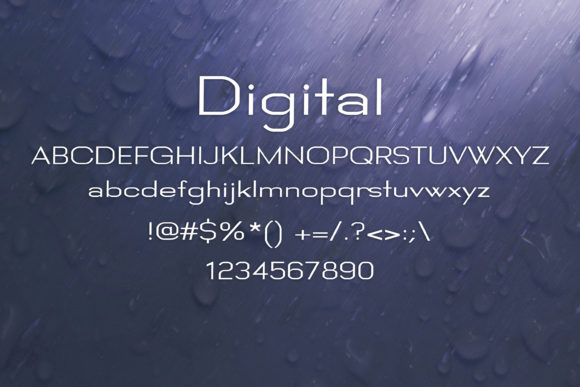
Introducing Digital Font: Elevate Your Designs with a Futuristic Twist
In the realm of digital design, typography plays a pivotal role in conveying the essence of a brand or project. The right font can instantly elevate your work, adding a touch of sophistication and luxury. This is where the Digital Font comes into play – a futuristic, yet simplistic display font designed to seamlessly blend with contemporary design styles and applications.
The Essence of Digital Font
Digital Font is crafted to make a statement. Its clean lines and minimalist aesthetic give it a sleek, modern look that’s perfect for designers and crafters aiming to infuse their projects with a futuristic vibe. Whether you’re working on a cutting-edge tech startup’s branding, a forward-thinking fashion label, or any project that demands a modern edge, Digital Font is your go-to choice.
Key Features of Digital Font
- Contemporary Aesthetic: Digital Font boasts a design that is quintessentially modern. Its characters are carefully crafted to provide a clean and uncluttered look, making it perfect for headlines, titles, and any prominent text in your designs.
- Versatility: One of the standout features of Digital Font is its versatility. It can be used across various mediums, from digital platforms like websites and mobile apps to print materials such as brochures, posters, and business cards.
- Luxurious Feel: Despite its simplicity, Digital Font exudes a sense of luxury and sophistication. Its elegant design ensures that your projects stand out, giving them a high-end feel that captivates audiences.
- Easy to Read: While it sports a futuristic design, Digital Font doesn’t compromise on readability. Its clear and distinct characters ensure that your message is conveyed effectively, making it suitable for both digital and print applications.
Applications of Digital Font
Digital Font’s adaptability makes it an excellent choice for a wide range of design projects. Here are some of the areas where it truly shines:
- Branding and Logos: Create a lasting impression with a futuristic yet approachable brand identity.
- Web Design: Enhance your website’s aesthetic with a modern font that catches the eye.
- Mobile Apps: Provide a seamless and stylish user experience with typography that aligns with contemporary design trends.
- Advertising and Marketing Materials: Stand out in a crowded marketplace with bold and luxurious typography.
- Fashion and Beauty: Add a touch of modernity and elegance to your fashion brand’s visual identity.
Tips for Using Digital Font Effectively
To maximize the impact of Digital Font in your designs, consider the following tips:
- Pair with Complementary Fonts: While Digital Font makes a statement on its own, pairing it with complementary fonts can add depth and interest to your designs.
- Experiment with Sizes and Weights: Don’t be afraid to experiment with different sizes and weights of Digital Font to create visual hierarchy and emphasis.
- Consider Your Audience: Ensure that the futuristic vibe of Digital Font aligns with your project’s target audience and message.
Digital Font is more than just a display font – it’s a design statement. Its futuristic yet simplistic design makes it an invaluable asset for designers and crafters looking to infuse their projects with a modern edge. Whether you’re aiming to add a luxurious feel, enhance readability, or simply make a bold statement, Digital Font is your key to unlocking a world of creative possibilities.
Embrace the future of design with Digital Font. Elevate your projects, captivate your audience, and make your mark in the world of digital and print design.